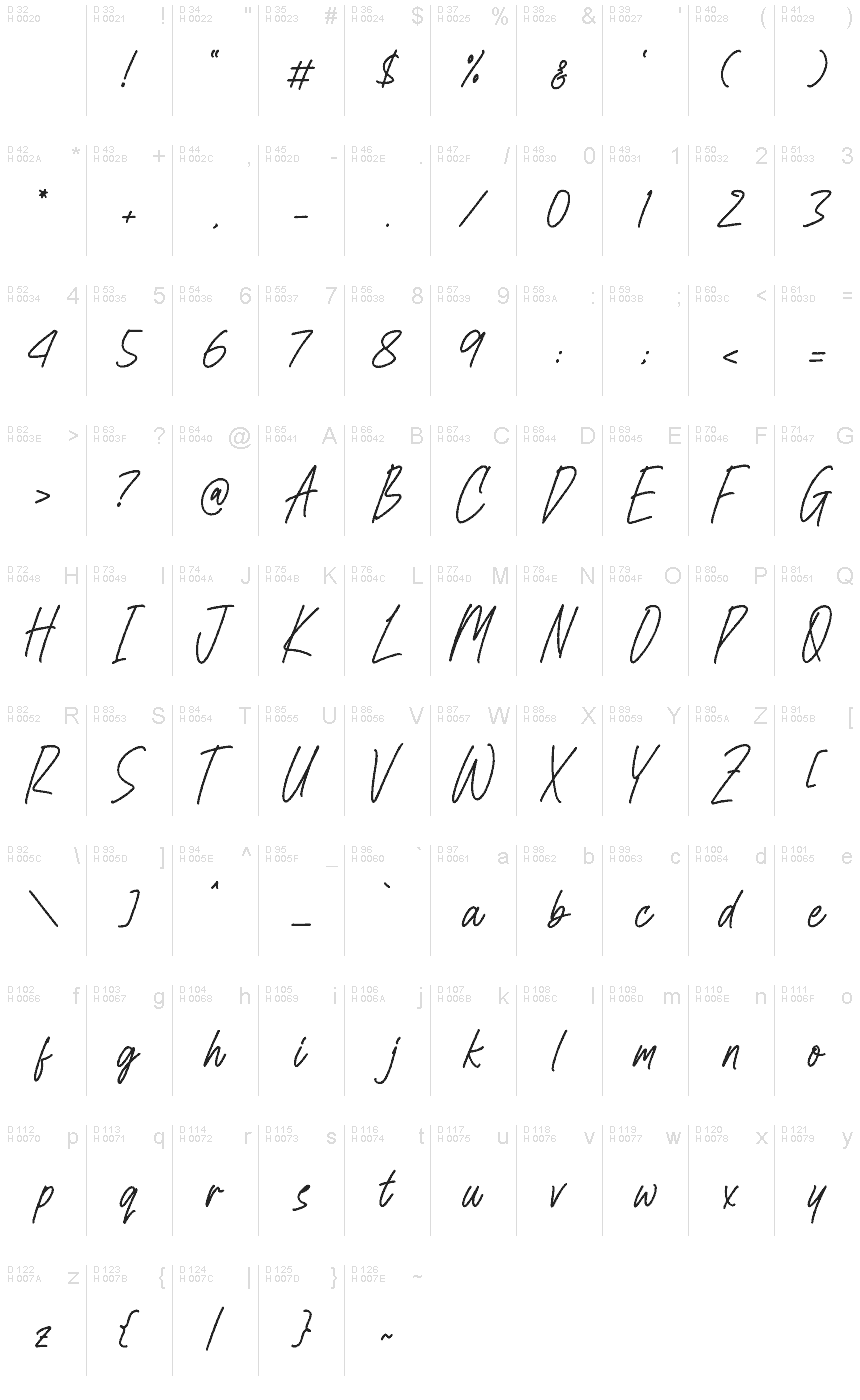
Montgomery
Montgomery font by Letterena Studios is a handwritten light font with a condensed body and modern design. The font style has a flowing rhythm with expressive character eight that is built through its thick-thin strokes, casual elegance, and a signature feel. Montgomery uses connected letterforms with cursive writing that immediately draw the attention of any observer.